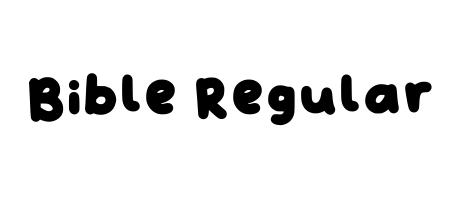
Bible
By Mikaila Delianne
Holy Bible: The font style is a simple, sans-serif typeface, clean and easily legible. It conveys a sense of seriousness and tradition, fitting for its religious context. The letters are consistently weighted, lacking any significant ornamentation, making it feel understated and reliable. The overall aesthetic is one of straightforward clarity.